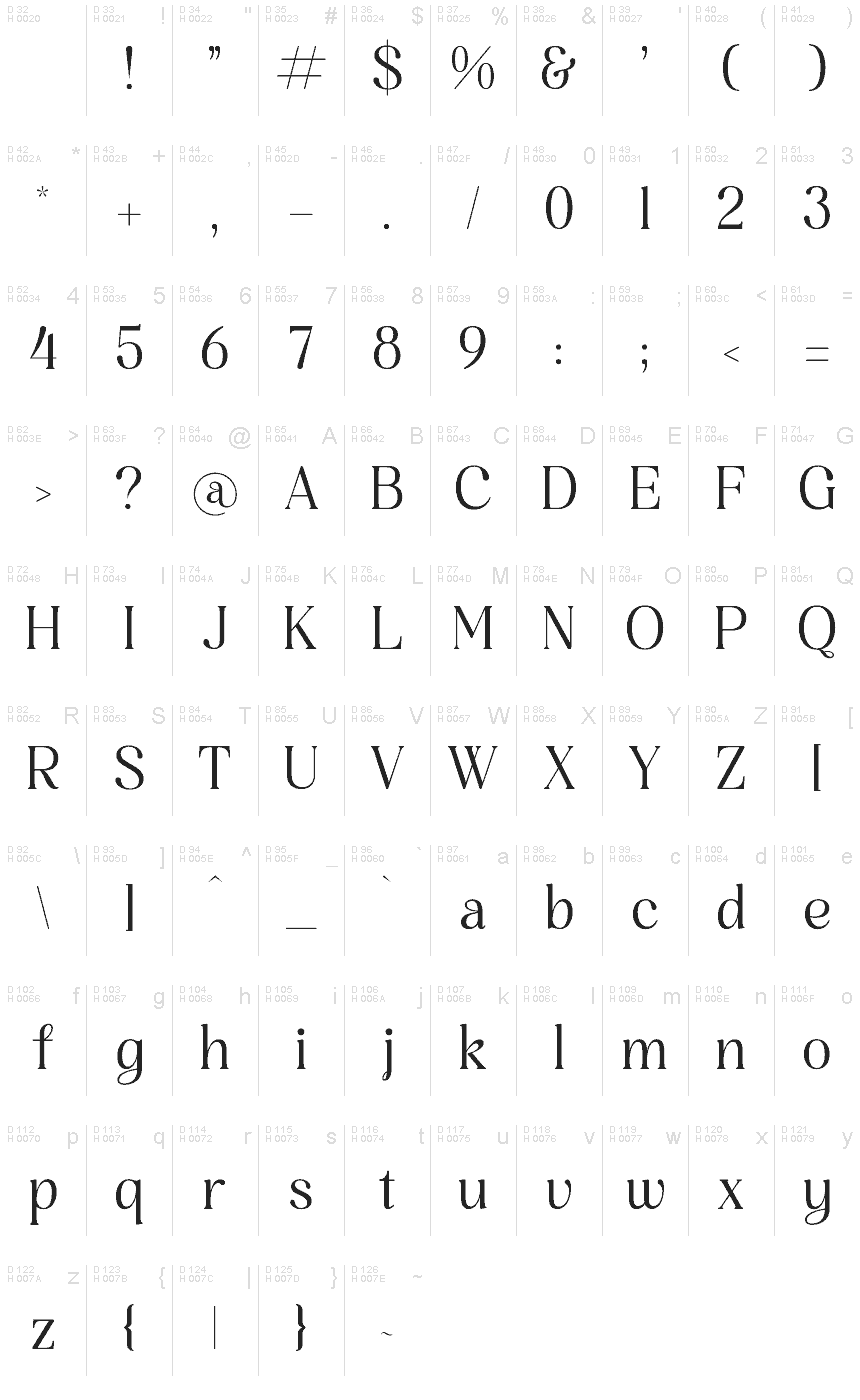
Simple Michael
Simple Michael font designed by Storytype Studio is a refined and sophisticated serif free font with thin characters in uppercase and lowercase. Its elegant strokes, clean lines, and smart design allow it to be legible even in smaller sizes. This classic and professional typeface was created to make everything you build look stylish with noticeable changes in its presence.